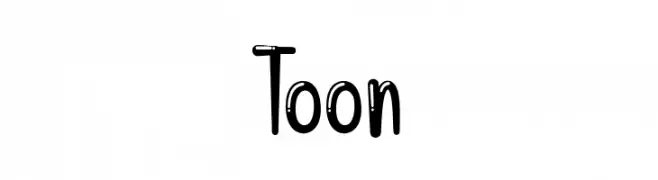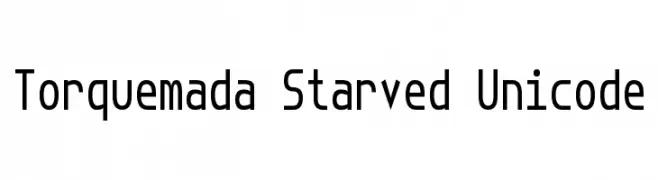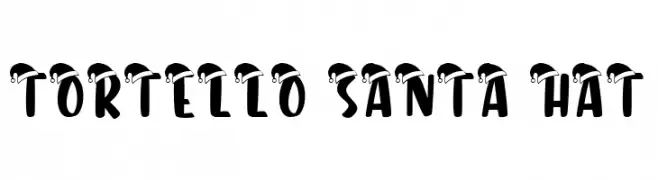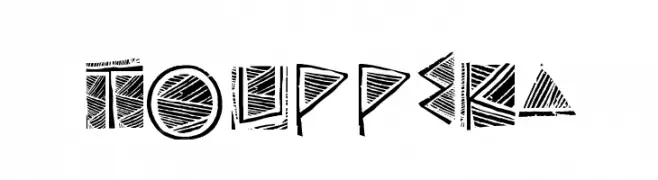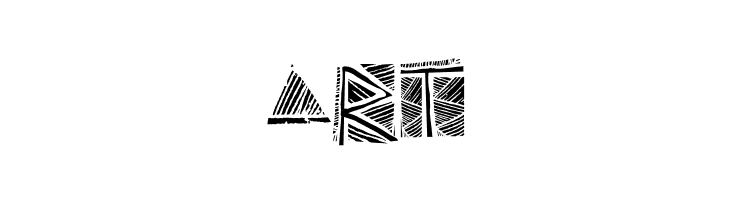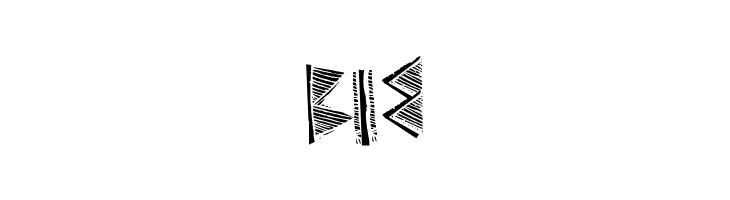
• Tom-Bombadill
A bold, playful font with thick, rounded strokes and a whimsical, hand-drawn feel.
• Toon
A playful, hand-drawn font with bold, rounded characters and a whimsical style.
• Torquemada Starved Unicode
A modern, geometric font with clean lines and a structured, minimalist design.
• Tortello
A playful, bold handwritten font with rounded strokes and a casual feel.
• Tortello Santa Hat
A festive font with each letter topped by a Santa hat, perfect for holiday projects.
• Tortello-SantaHat
A festive, bold font with Santa hats on each letter, perfect for holiday themes.
• TotalShock
Bold, italicized font with a dynamic, edgy style.
• Touppeka
A bold, geometric font with a tribal aesthetic and intricate line patterns.
• Touppeka
A bold, geometric font with intricate line patterns.
• ToxicPowers
A bold, textured font with a dynamic, graffiti-like style.